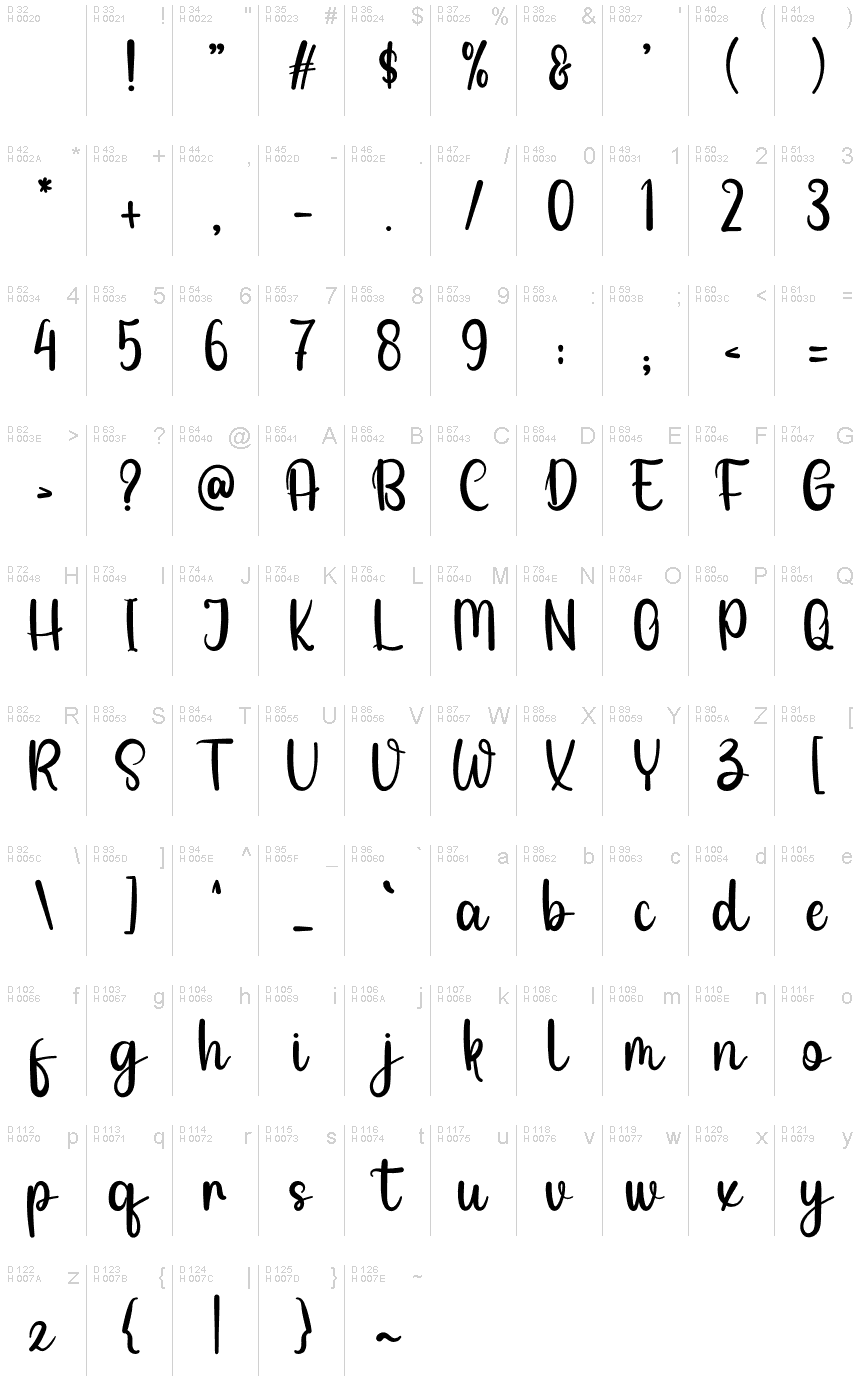
Reindeer
Introducing Reindeer by Inermedia Studio, a handwritten font perfect for crafting eye-catching logos, adding a personal touch to greeting cards, and making your blog posts stand out. With its unique style, Reindeer is sure to give your projects an elegant and heartfelt feel.